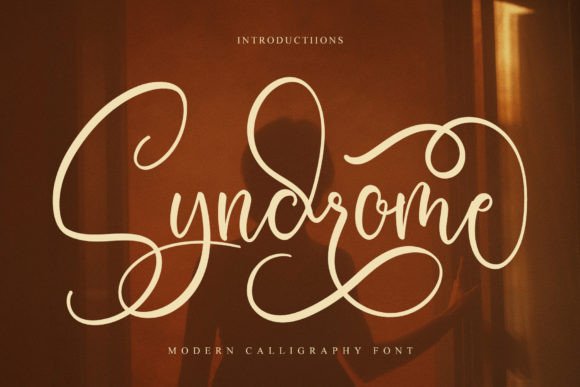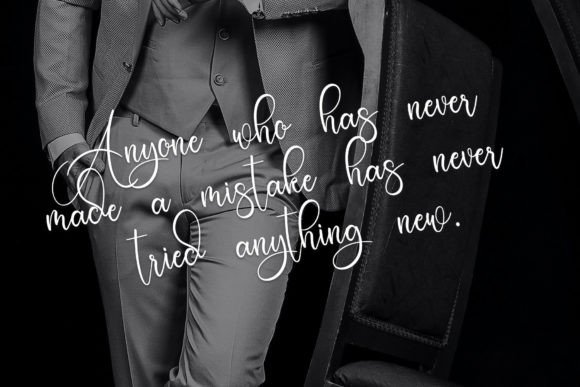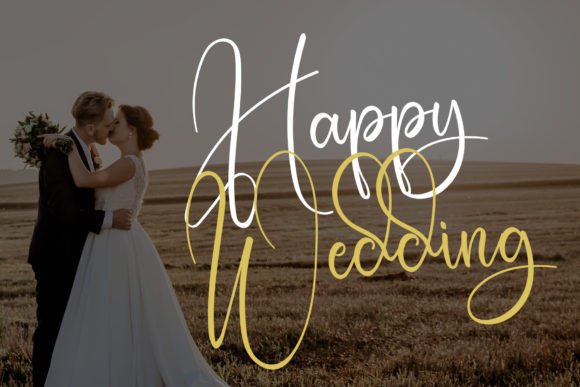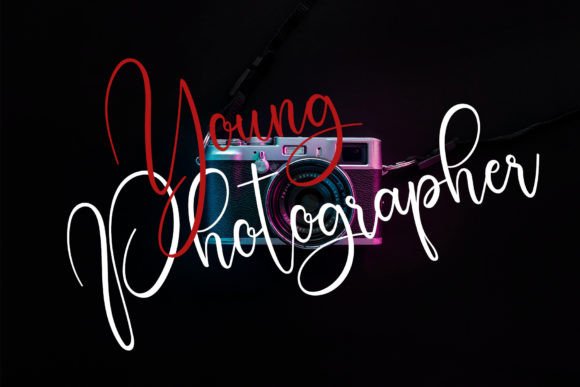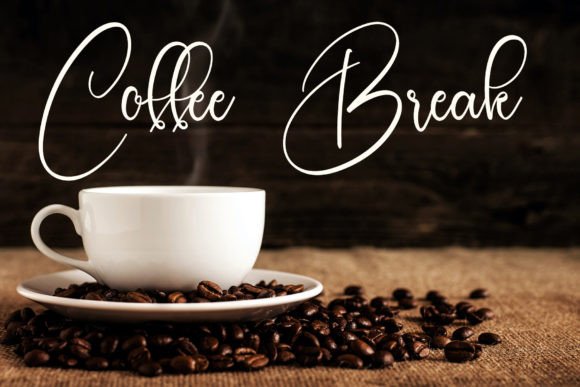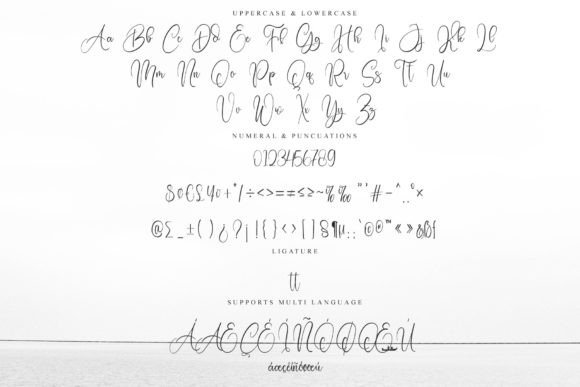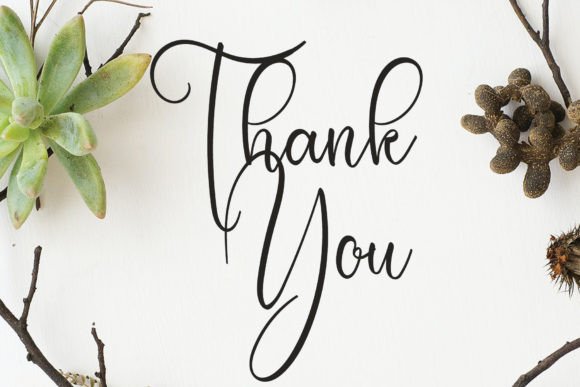
Syndrome Font
About Syndrome Font
“Syndrome” is described as a dazzling script font, meticulously crafted with high attention to detail. Regardless of the topic or project, this font is poised to become a valuable asset in your font library, as it possesses the potential to enhance a wide range of creations.
The allure of “Syndrome” lies in its ability to captivate and elevate your designs. With its dazzling script style, this font adds a touch of sophistication and flair to your projects, making them visually striking and memorable.
Whether you’re working on branding, invitations, labels, posters, or any creative endeavor, “Syndrome” offers a versatile and visually engaging option. It allows you to convey your message with elegance and intricacy.
As you incorporate “Syndrome” into your creative process, you’ll discover its remarkable ability to enhance your work, making it visually captivating and memorable. This font becomes a reliable and versatile tool for designers looking to create designs that stand out with a touch of sophistication and detailed craftsmanship.
In summary, “Syndrome” is a dazzling script font that excels in adding elegance and intricate detail to a wide variety of design projects. Its versatility and meticulous craftsmanship make it a valuable choice for designers aiming to create visually appealing and refined work. Let “Syndrome” be your creative companion, and watch how it enhances your designs, ensuring they shine with sophistication and intricate charm, enhancing any creation.